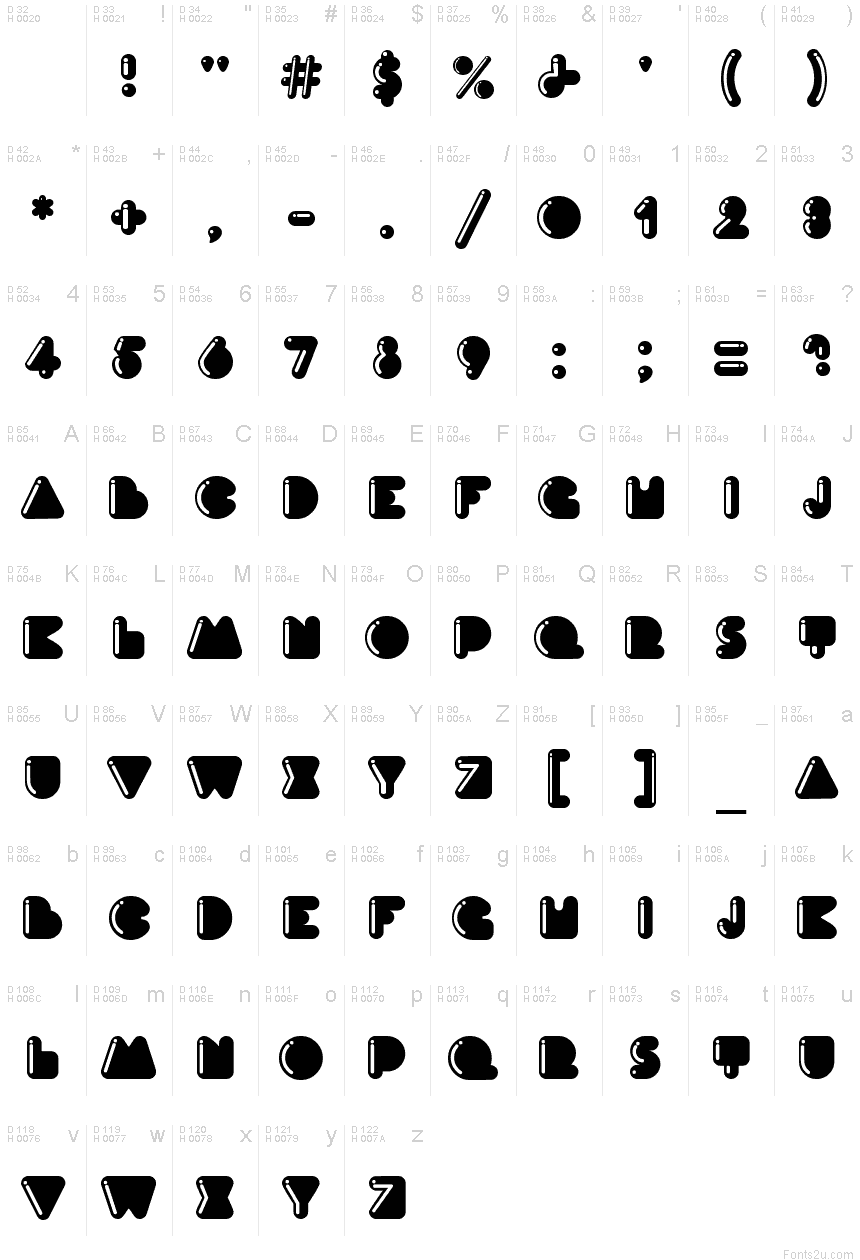
Ink Highlight by Richard William Mueller is a free groovy cartoon display font built from swollen rounded letters and slim inset shine marks. Its compact shapes have the soft mass of molded plastic.
Candy, toys, and comic mischief are natural subjects for this glossy style, making it useful for children's packaging and game graphics. The repeated highlights make each letter resemble a small illustrated object rather than ordinary printed type. It could also shape music merchandise, party posters, and playful food branding, where the inflated forms echo stickers, sweets, and vinyl toys.